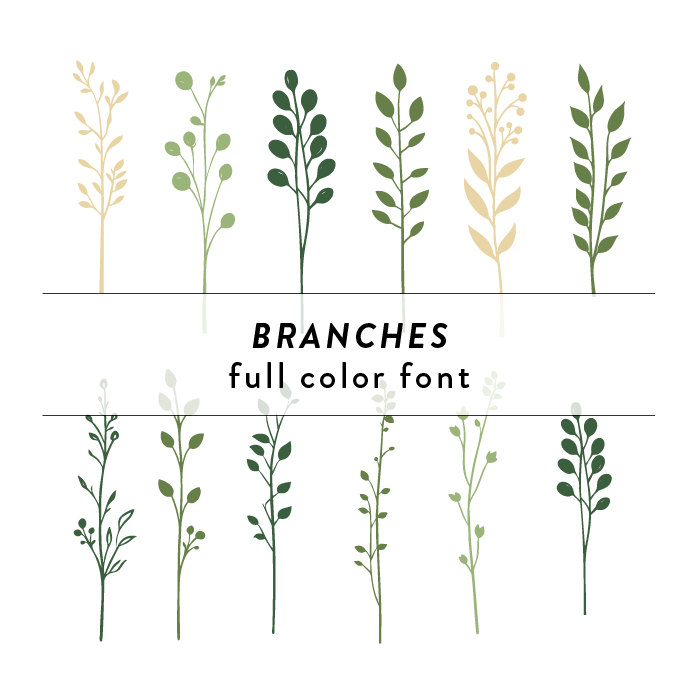
Branches Full Color Font is a whimsical and intricate design inspired by the beauty of nature. With delicate branches, leaves, and vibrant colors, this font exudes a summer vibe perfect for craft projects. Its unique style adds a touch of elegance and creativity to any design. Ideal for creating eye-catching invitations, posters, and branding materials. This font is a OTF craft font that will appear in color only when used with the silhouette software.